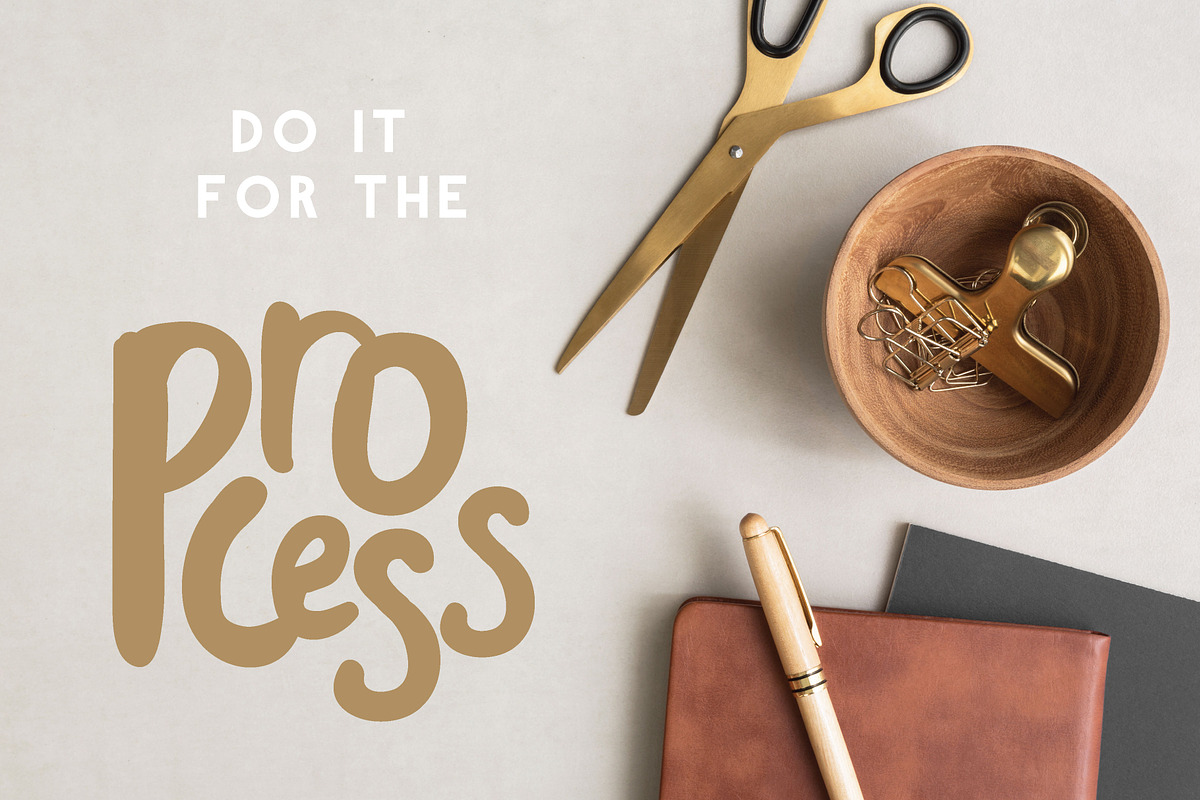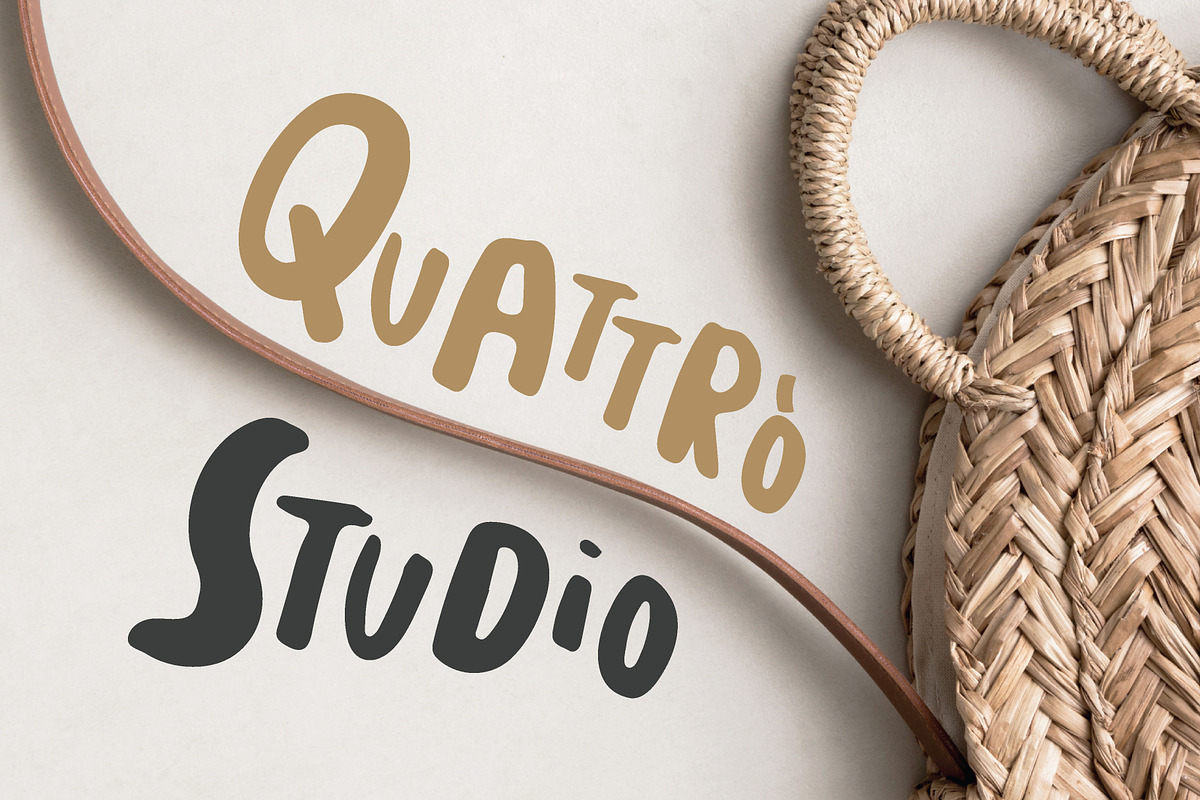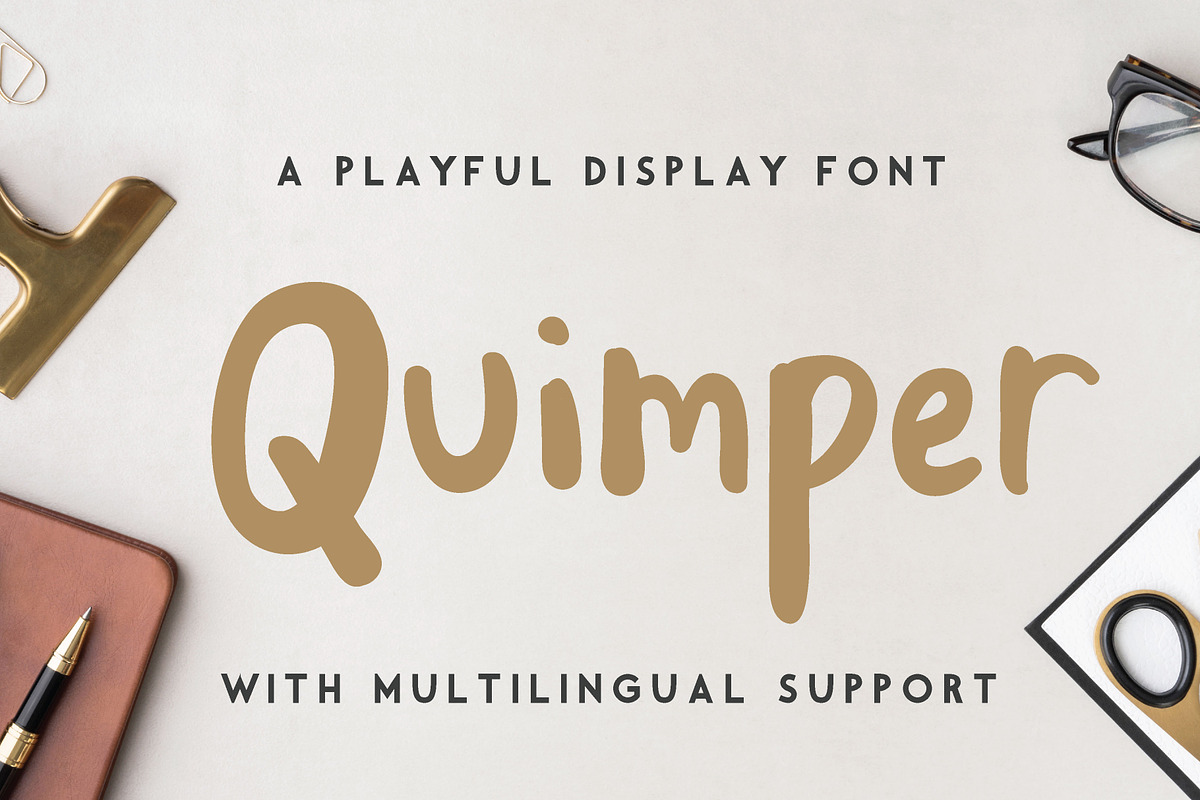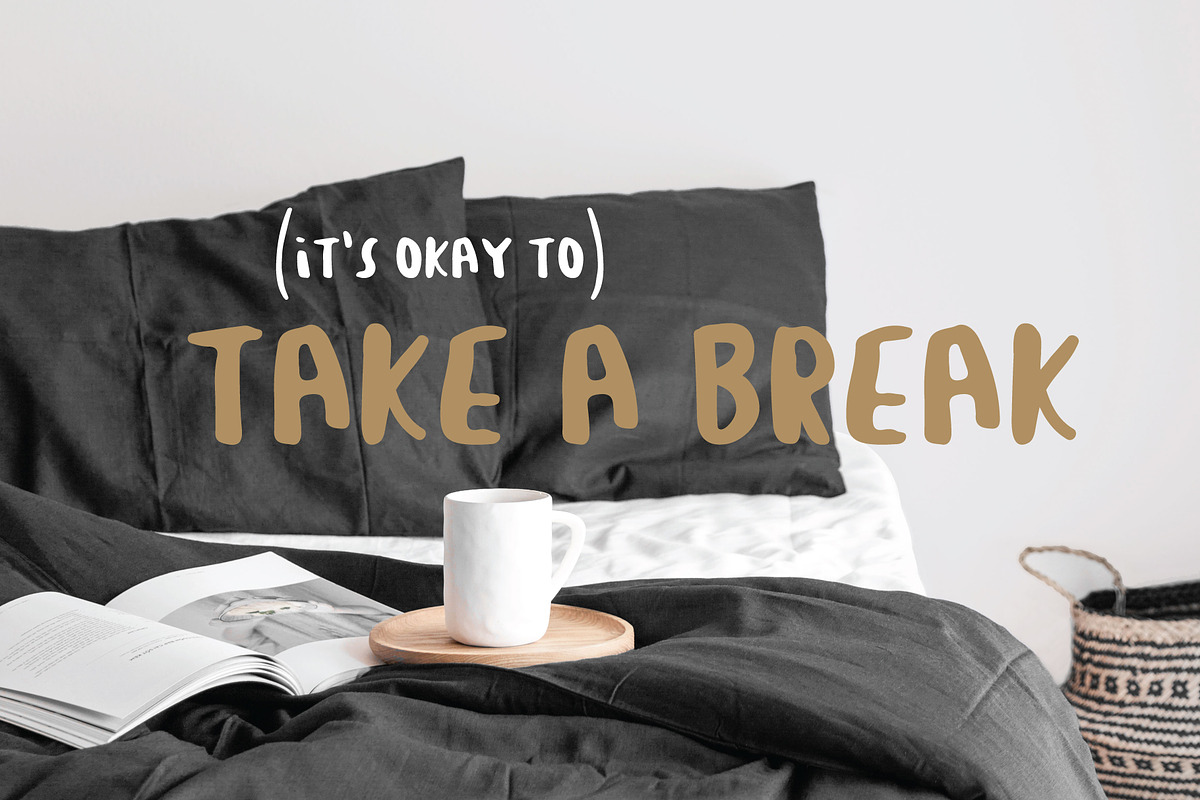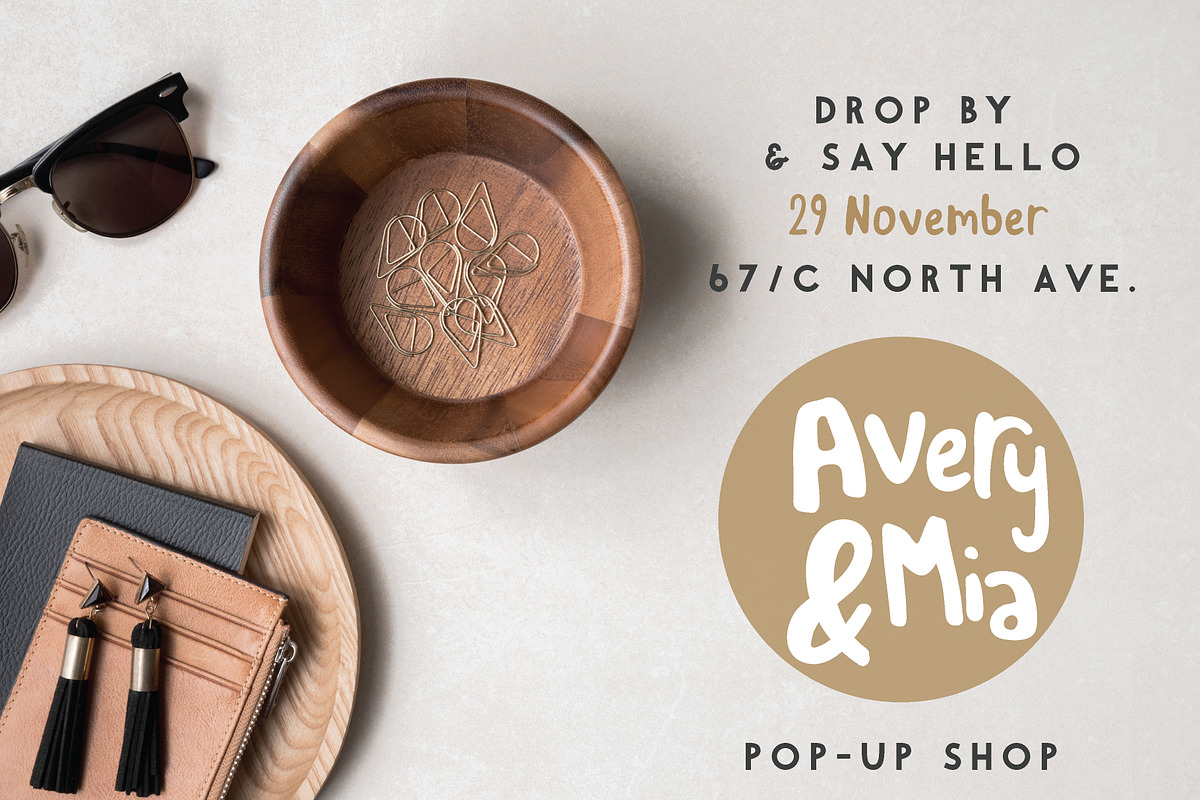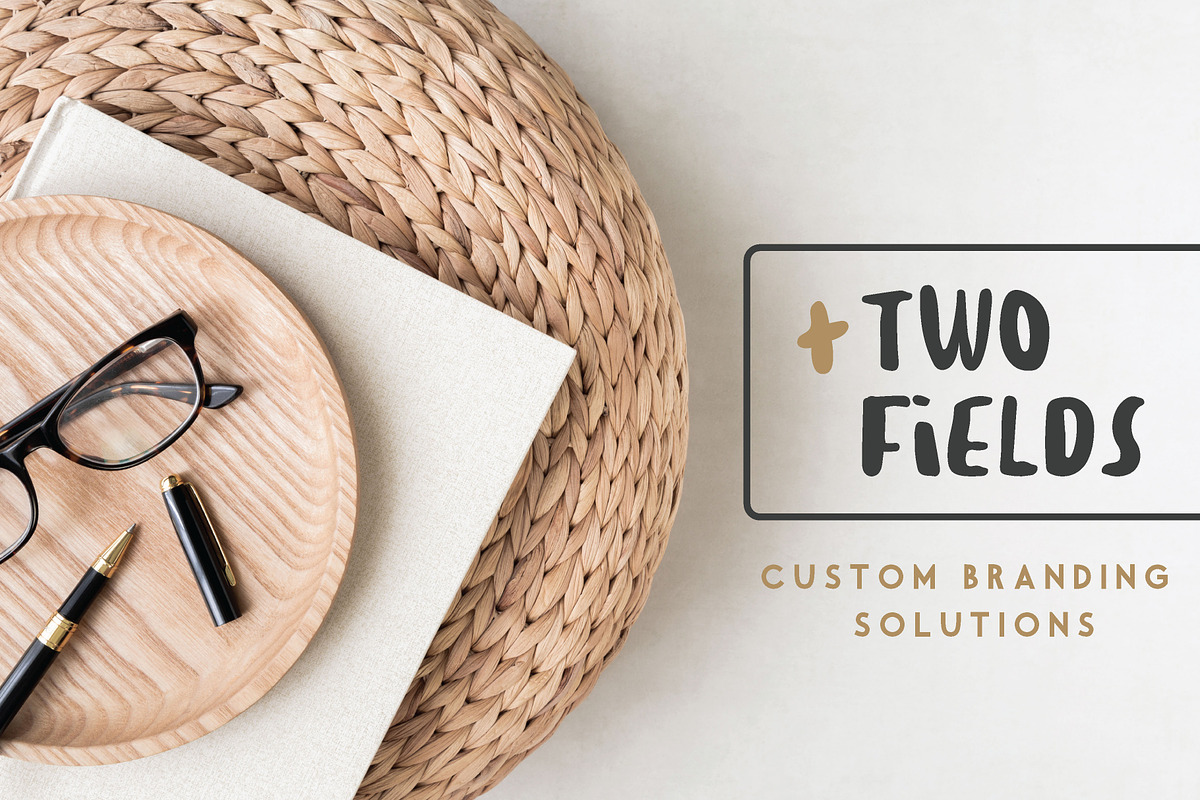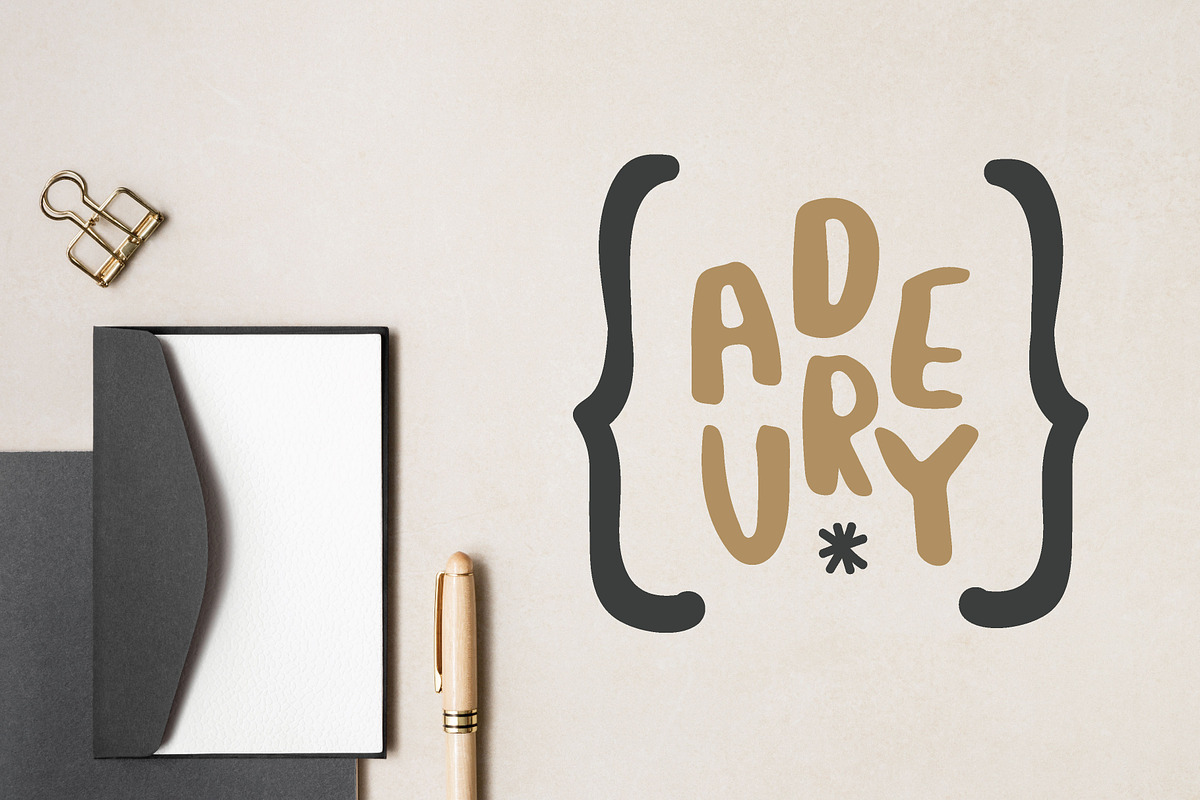
Quimper | a playful display font
Quimperis a playful sans-serif handwritten font with imperfectly perfect edges. With a full suite of uppercase and lowercase letters, Quimper can be used in many style contexts and design environments. Perfect for poster or t-shirt design, magazines, websites, logos, boho wedding invitations and much more! Vary the lower- and uppercase letters to achieve a new, unique design every time you use it!
Quimper handwritten font with a whole set of uppercase & lowercase letters
Language support including: German, Spanish, Italian, Swedish, Danish, Norwegian, Icelandic, French, Portuguese, Hungarian and more (please check out the whole alphabet below)